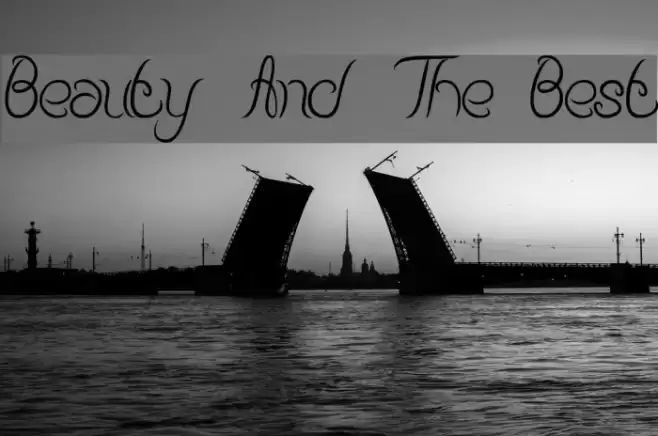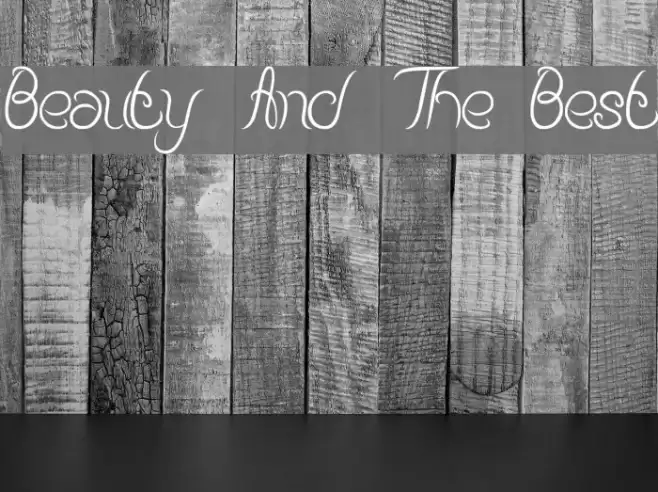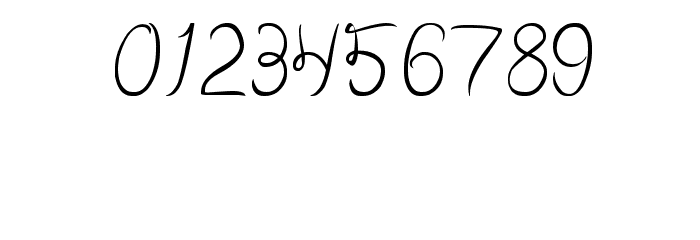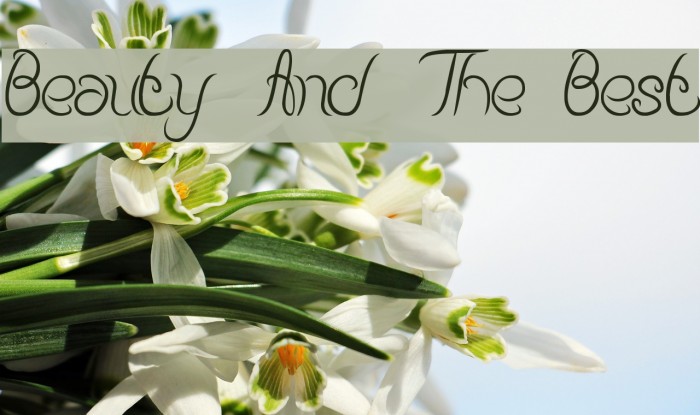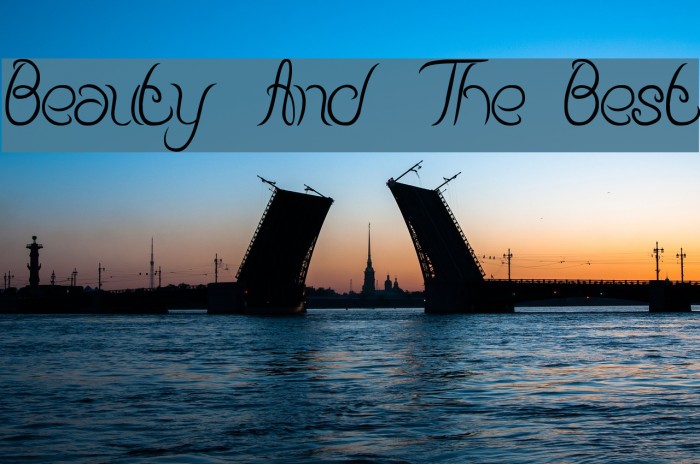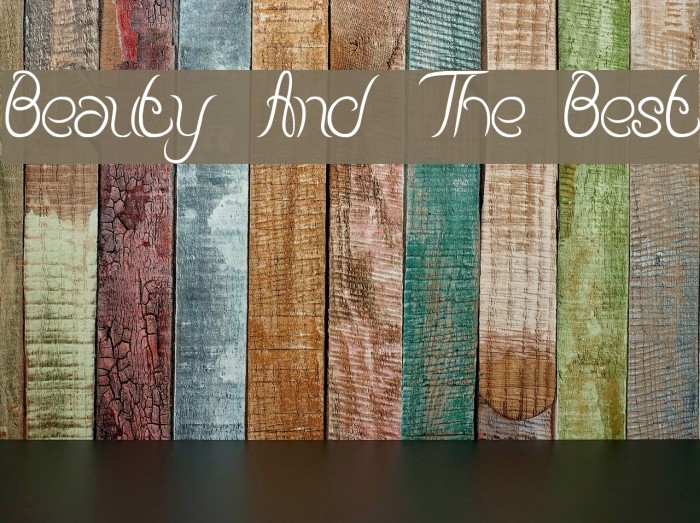
Beauty And The Best Font
This font features an elegant and flowing script style, characterized by its smooth, continuous strokes and graceful curves. The uppercase letters are tall and slender, with a slight slant that adds a dynamic feel. The lowercase letters maintain a consistent style, with loops and swirls that enhance the overall aesthetic. Numbers are designed with the same fluidity, ensuring a cohesive look across all characters. The font's unique style makes it suitable for projects that require a touch of sophistication and creativity.
An elegant script font with flowing, graceful curves and dynamic slant from Uncategorized fonts.
- Proposed Projects: Ideal for wedding invitations, elegant branding, greeting cards, and decorative headlines.
- Overall Style: Elegant
- Use Case: Headlines, Invitations, Branding